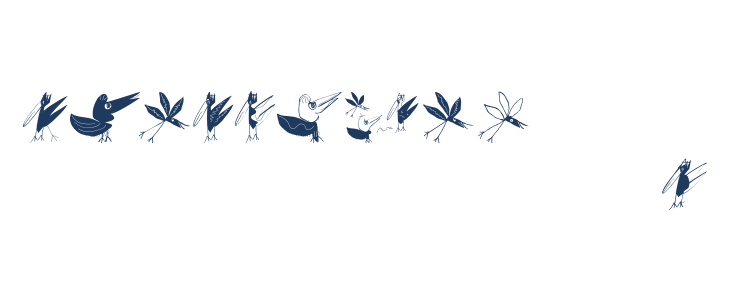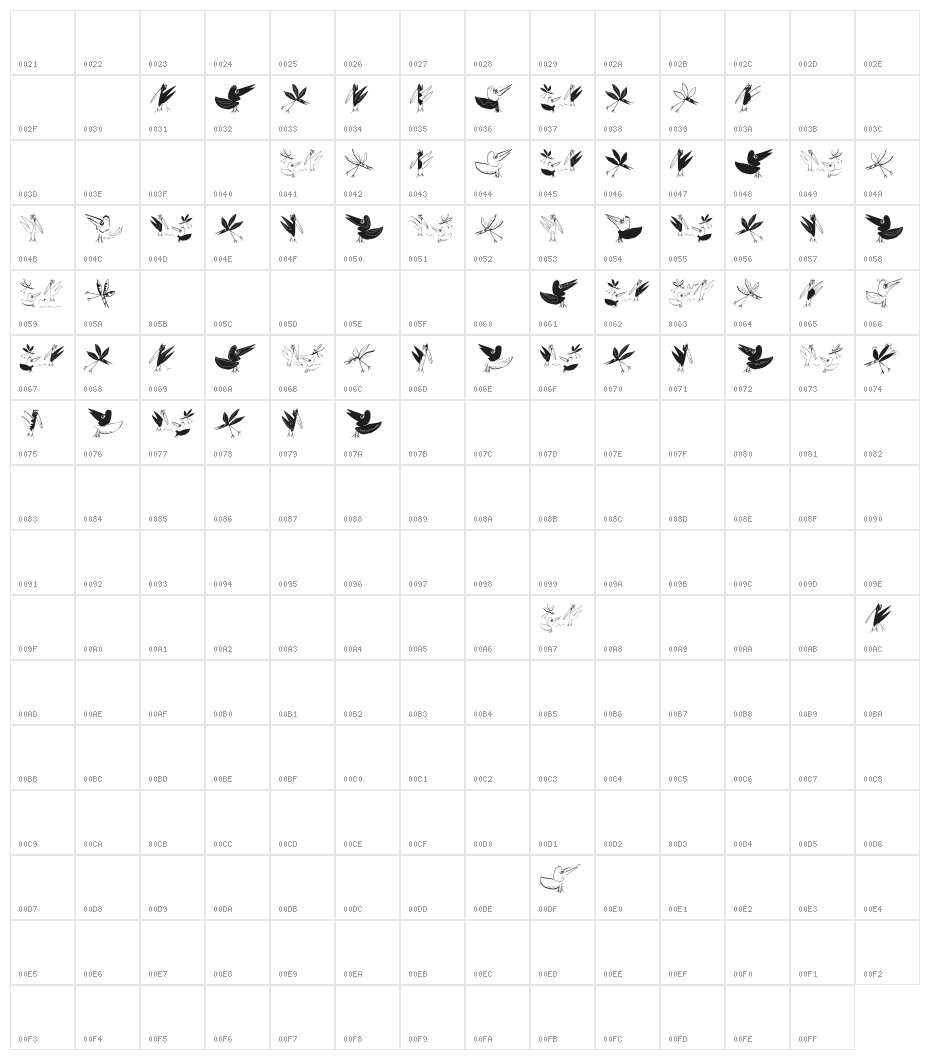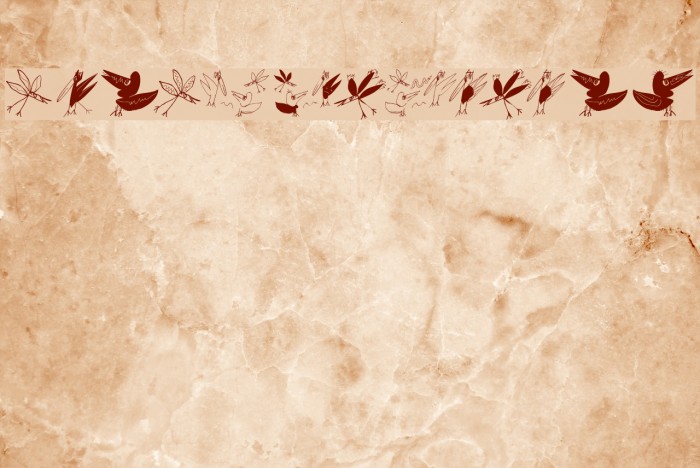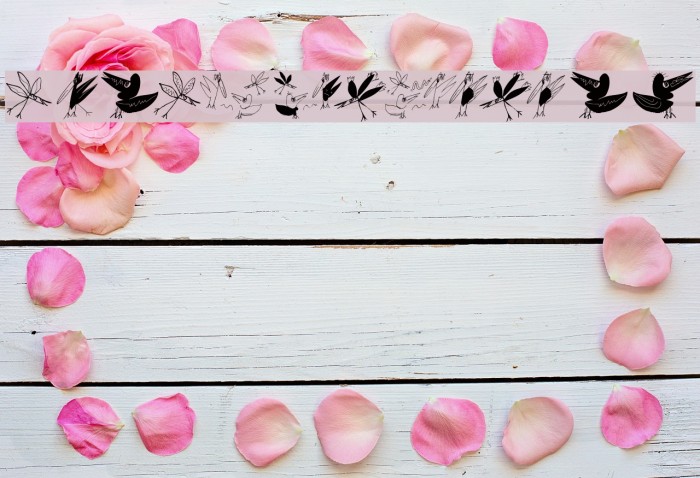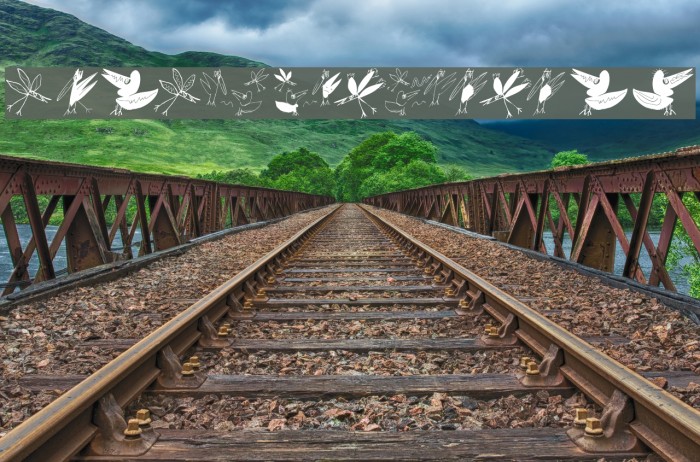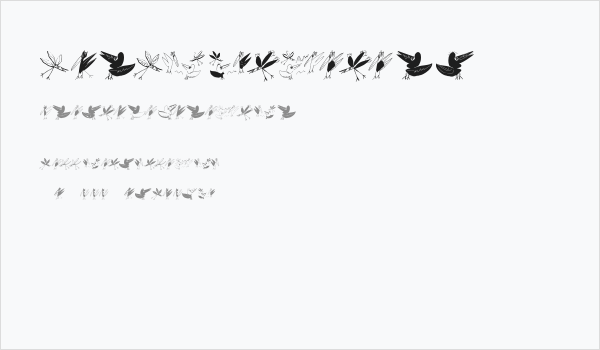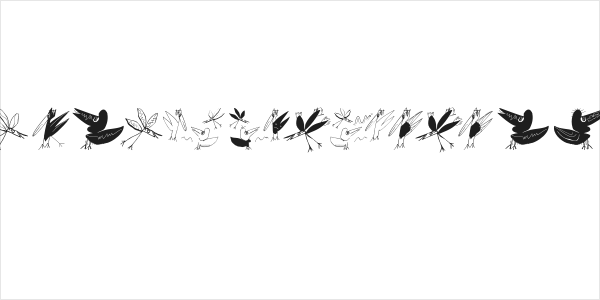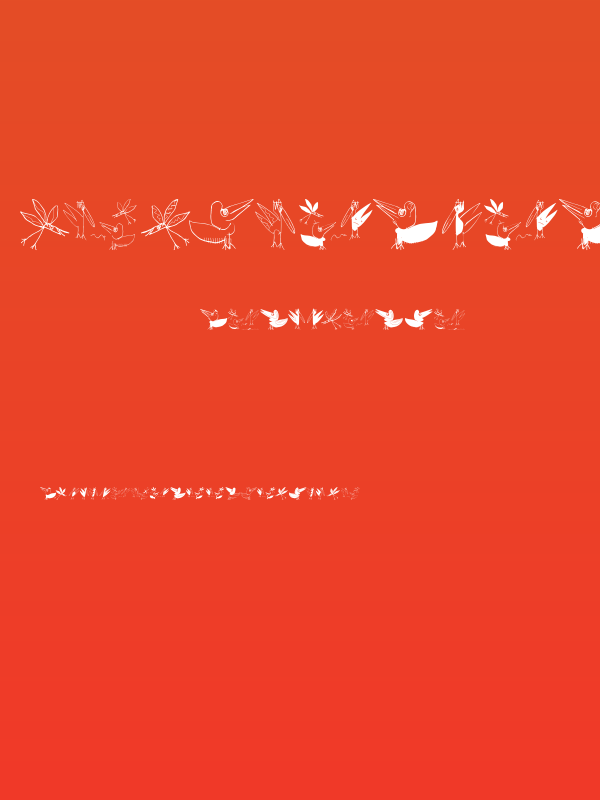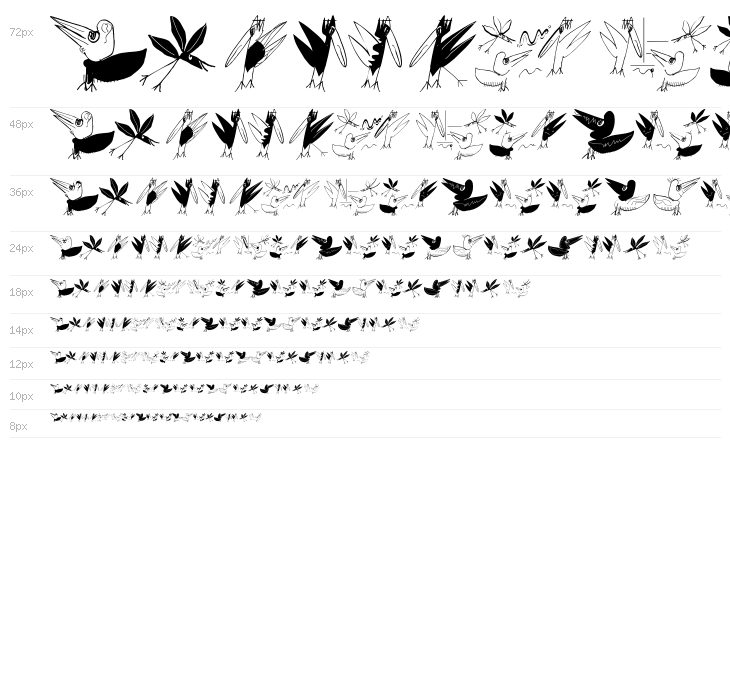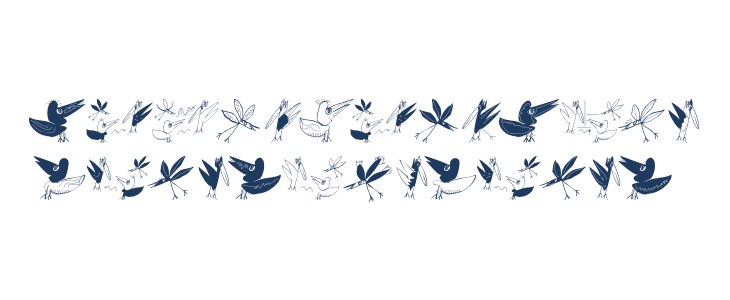
BirdsEtcetera Font
BirdsEtcetera Description
A whimsical decorative font composed entirely of playful bird and leaf illustrations, featuring both filled and outline styles with varied line thickness and quirky, hand-drawn character. Each glyph is a unique drawing rather than a traditional letterform, making it highly illustrative and expressive.
| Overall Style | Whimsical, Playful, Hand-drawn |
| Use Case | Illustrative elements, Borders, Decorative accents |
| Proposed Projects | ChildrenΓ’β¬β’s books, greeting cards, nature-themed posters, playful branding, scrapbooking, educational materials. |